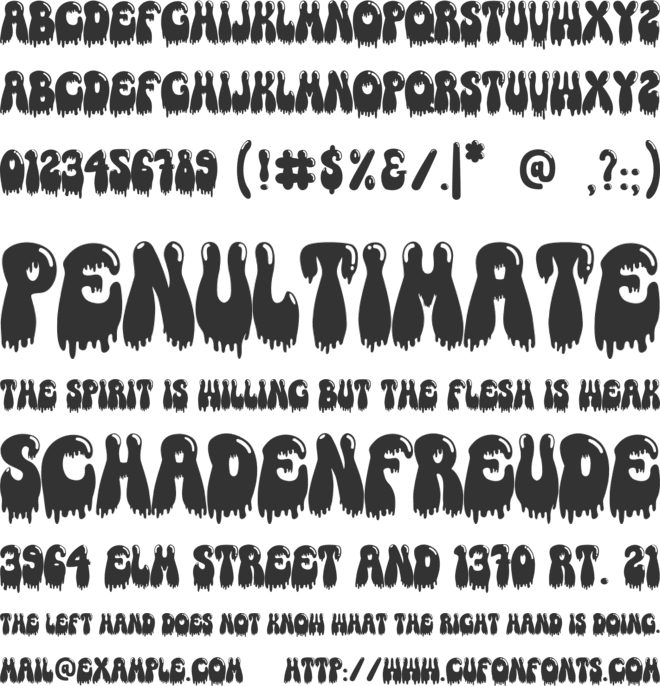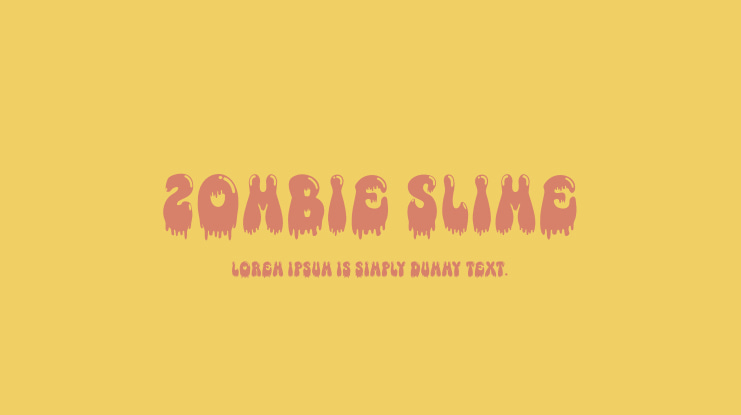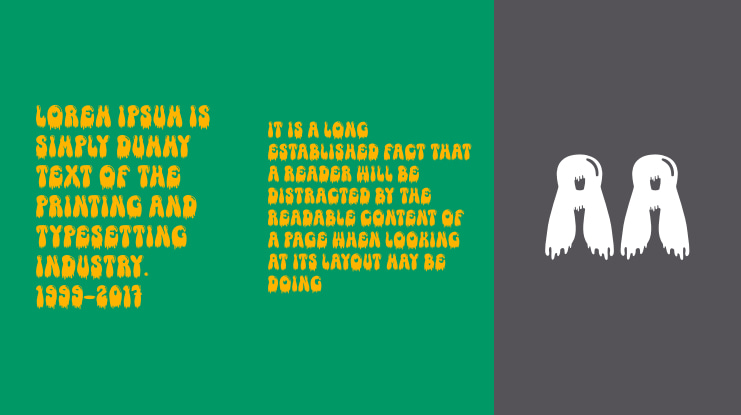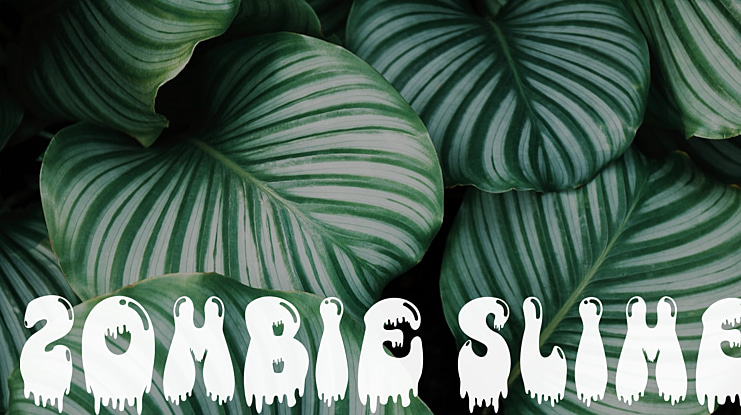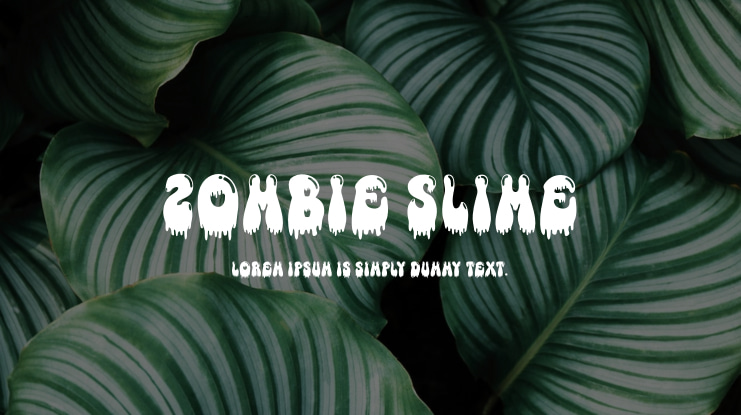
Zombie Slime Font
Zombie Slime is a multi-purpose, trendy, hip, and fun vintage font, ideal for a range of uses including greeting cards, titles, and beyond! Incorporate it into your artistic endeavors and watch it infuse them with a charming and refined touch.